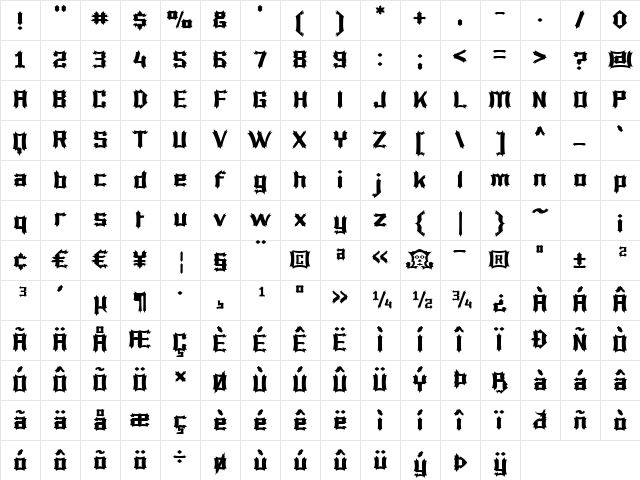
Luciferius Regular Free Font
Luciferius Regular
Designer: Graham Meade & Apostrophe
Complete Luciferius Regular glyph index. Displaying only characters natively supported by Luciferius Regular font.
Design Context for Luciferius
Luciferius is a composed and adaptable typeface that performs quietly and consistently across a wide range of design contexts.